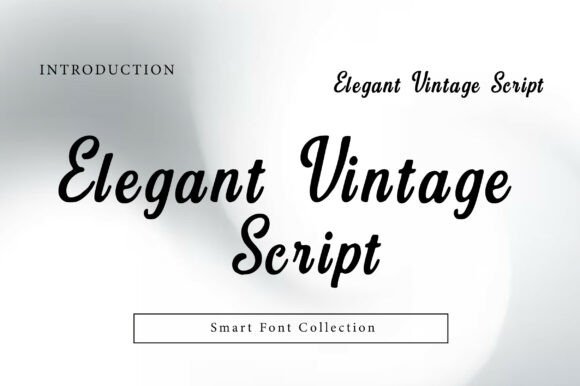
Elegant Vintage Script: A Timeless Web Typeface
In the crowded landscape of digital experiences, a brand's visual identity often hinges on a single, critical decision: typography. As designers, we know that while layout and color set the stage, the typeface delivers the performance. When I need to inject a sense of heritage, grace, or artisanal quality into a website, I turn to Elegant Vintage Script. This is not just another decorative font; it is a carefully crafted tool for creating emotional connections in web design, UI interfaces, and digital marketing assets.
Elegant Vintage Script belongs to the category of premium script fonts that bridge the gap between historical calligraphy and modern screen readability. Its smooth curves and refined strokes mimic the fluid motion of a nib pen, offering a classic handwritten charm that feels both personal and professional. In an era dominated by rigid geometric sans serifs, this vintage-inspired typeface provides a necessary counterbalance, adding warmth and sophistication to digital products.
Defining Visual Hierarchy with Flowing Characters
The primary challenge when integrating a script font into a web project is maintaining clear visual hierarchy. Elegant Vintage Script excels here because its distinct character shapes naturally draw the eye without overwhelming the user. Unlike chaotic display fonts that can clutter a hero section, this typeface maintains a consistent rhythm. The varying stroke weights create a dynamic flow that guides the reader through headlines and key messages effortlessly.
When designing landing pages or product showcases, I often use this font for hero titles where the goal is to stop the scroll. The organic nature of the letters suggests craftsmanship, which is particularly effective for brands selling handmade goods, luxury services, or creative portfolios. By placing Elegant Vintage Script at the top of the page, you immediately establish a tone of elegance and trust before the user even reads the body copy.
Strategic Placement in Digital Layouts
To maximize impact, this font should be treated as a display element rather than a workhorse for long-form content. It shines in specific areas of a website:
However, restraint is key. Using Elegant Vintage Script for entire paragraphs will destroy readability and frustrate users. Instead, pair it with a clean, neutral typeface to let the script breathe and command attention where it matters most.
Optimizing Readability Across Devices
One of the biggest concerns for UI designers is how complex scripts perform on mobile screens. Elegant Vintage Script has been optimized for digital environments, ensuring that even the finest details remain visible on smaller viewports. However, responsive design requires careful adjustment of font size and line height.
On mobile devices, I recommend increasing the base size slightly compared to desktop layouts to prevent the intricate loops and tails from becoming indistinguishable blobs. Additionally, avoiding light gray backgrounds is essential. This font performs best with high contrast—deep blacks on white backgrounds or crisp whites on dark overlays. When used over image backgrounds, always ensure a subtle shadow or backdrop filter is applied to maintain legibility.
For SaaS founders and app creators, consider using this font sparingly within the interface. It works beautifully for onboarding welcome screens or success notifications, adding a human element to software interactions. Yet, for navigation menus and data-heavy dashboards, stick to standard sans serif fonts to ensure usability remains paramount.
The Art of Font Pairing for Brand Identity
A strong brand identity relies on harmonious font pairing. Since Elegant Vintage Script is highly decorative, it needs a partner that grounds the design. My go-to strategy is pairing it with a simple, geometric sans serif font for body copy. This combination creates a striking contrast between the old-world charm of the script and the modern efficiency of the sans serif, resulting in a balanced and contemporary look.
Alternatively, for an editorial or luxury aesthetic, pairing this script with a classic serif font can evoke a sense of tradition and authority. This approach is ideal for fashion blogs, wedding planning sites, or literary platforms. The key is to ensure the secondary font does not compete for attention. Let the script lead the narrative while the supporting typeface handles the information delivery.
Whether you are building a course sales page, a portfolio site, or a comprehensive brand kit, the versatility of Elegant Vintage Script allows it to adapt to various contexts. Its ability to convey emotion makes it a powerful asset in conversion-focused layouts, where the right tone can influence a visitor's decision to purchase or sign up.